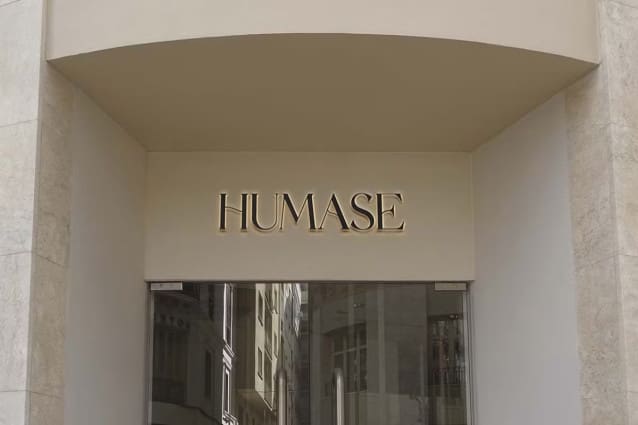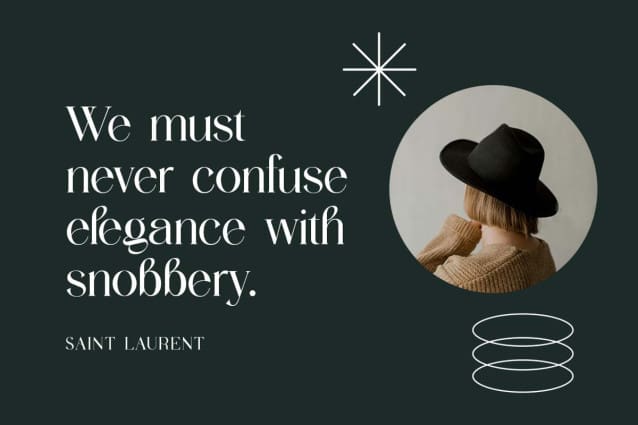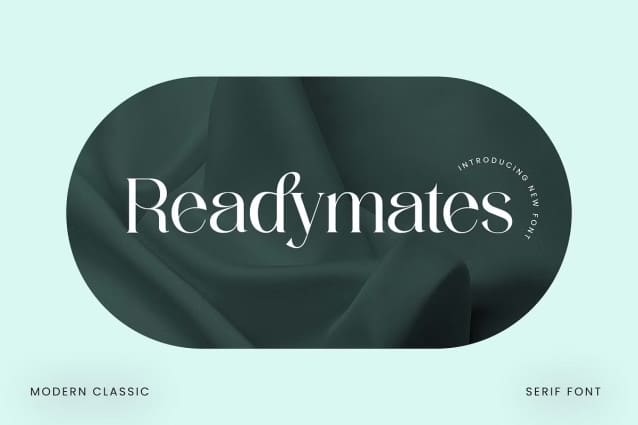
Readymates Font
Readymates Font – Elegant Serif Font . The modern display font feels beautiful classy, elegant, and stylish. This font is ideally suited for a wide variety of projects, such as signature, stationery, logo, wedding, typography quotes, magazine or book covers, website headers, branding, and more. Also, fashion-related branding or editorial design displays both masculine and feminine qualities.